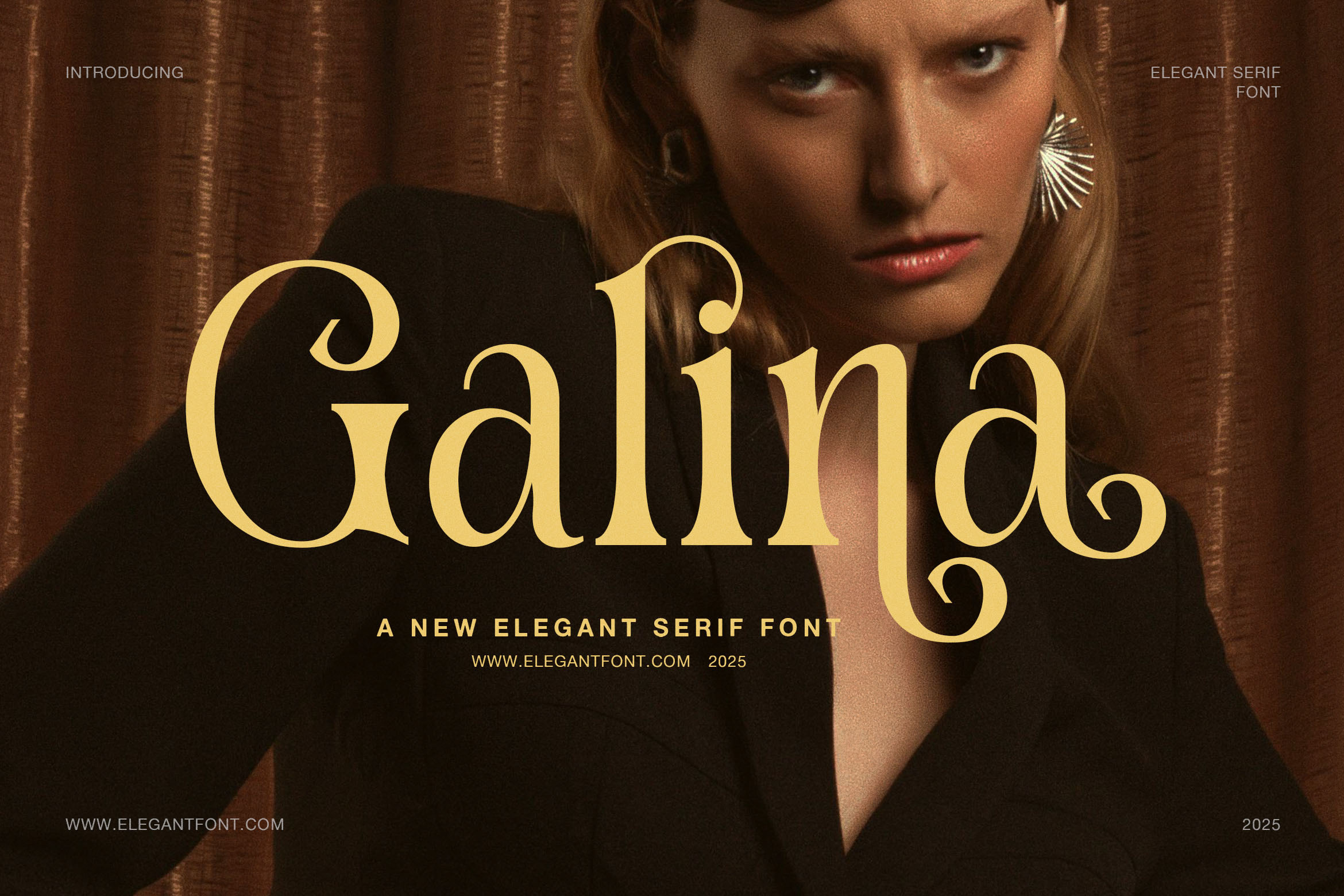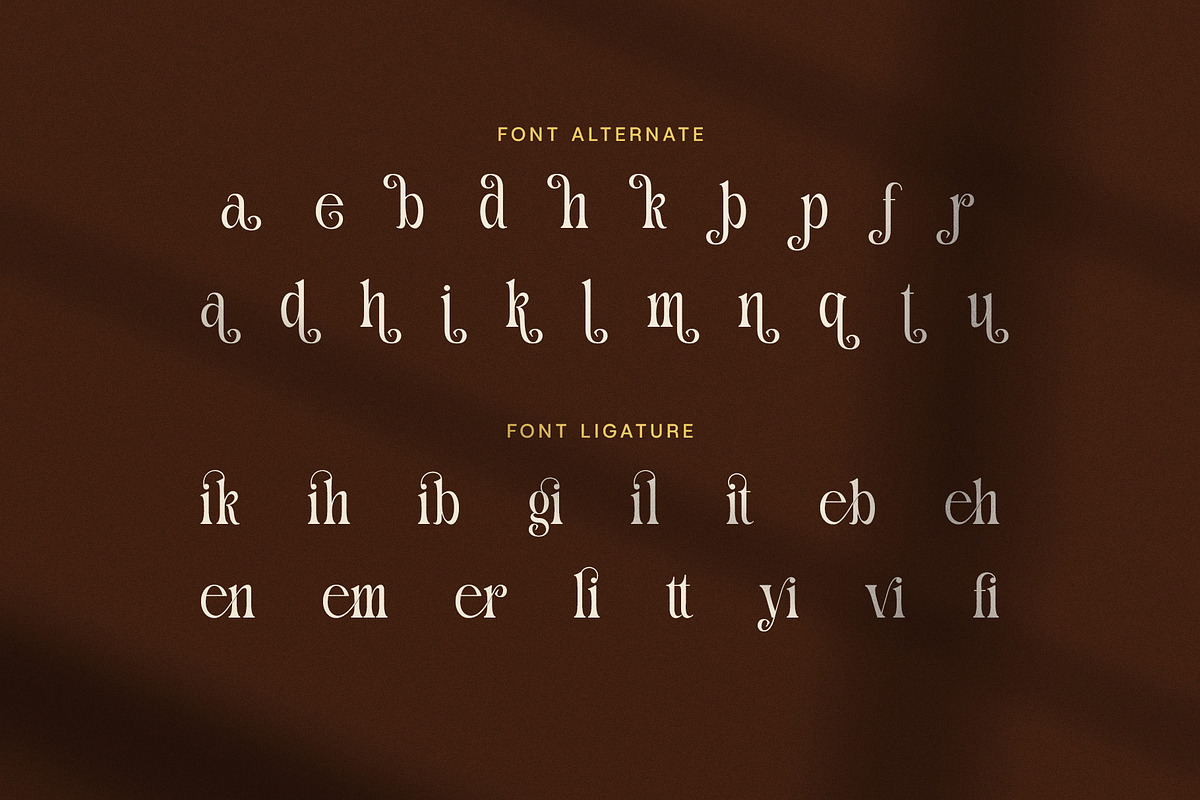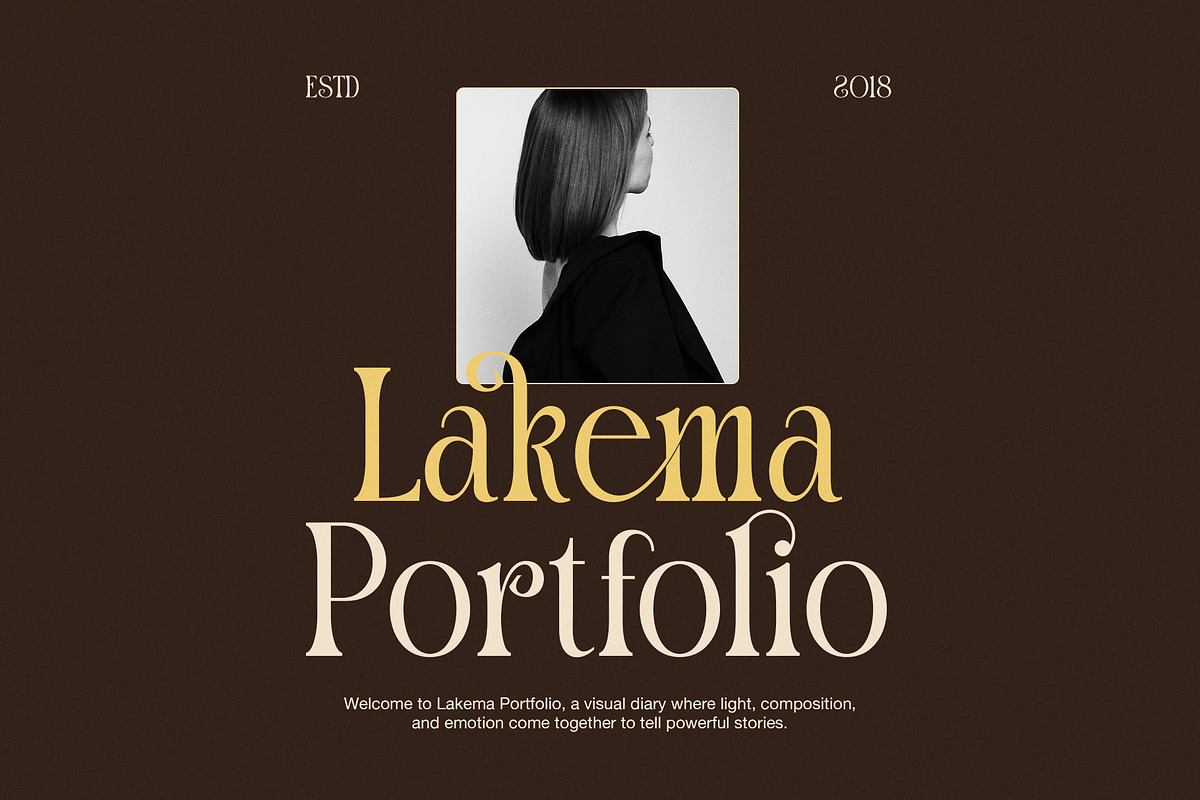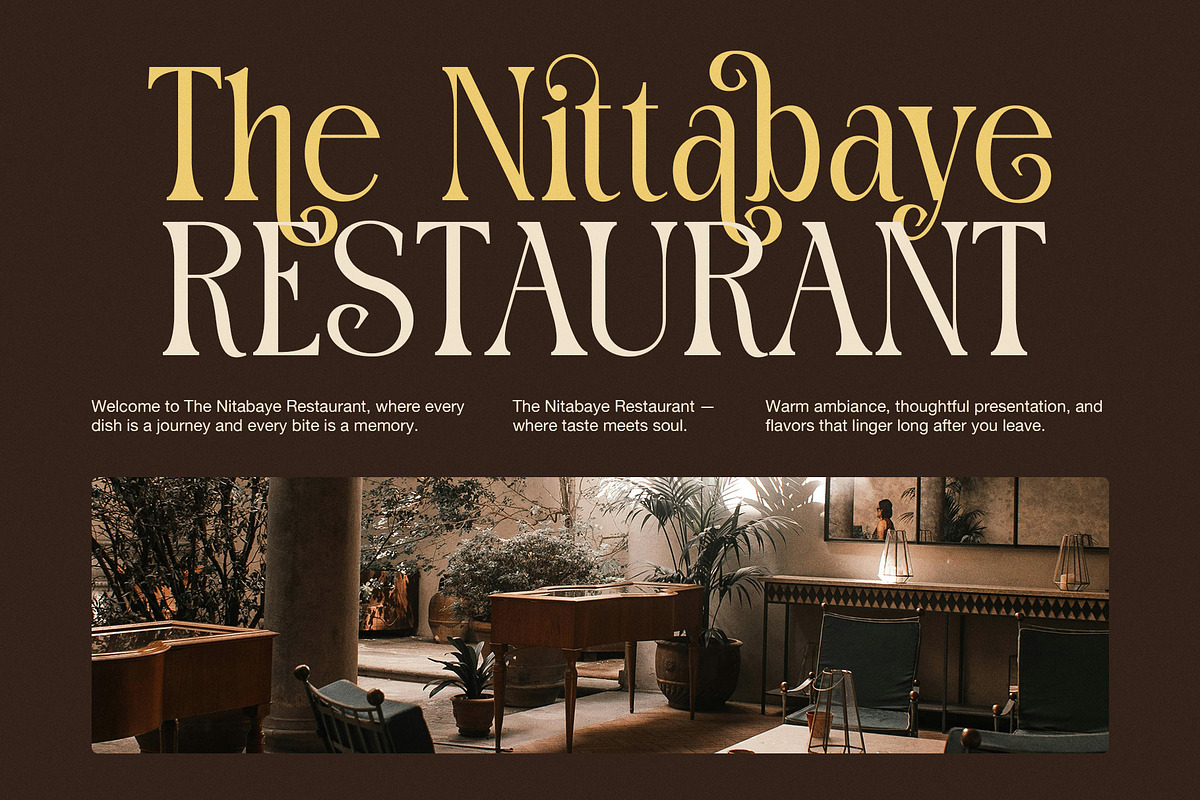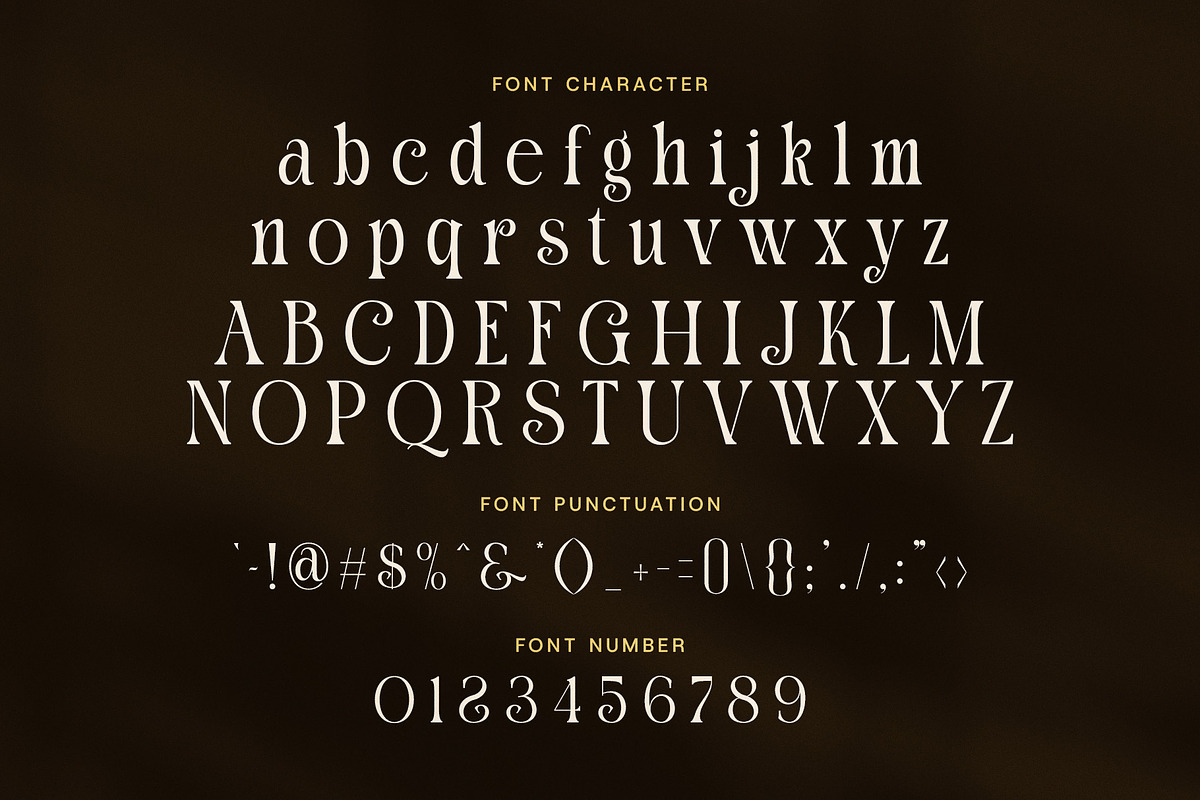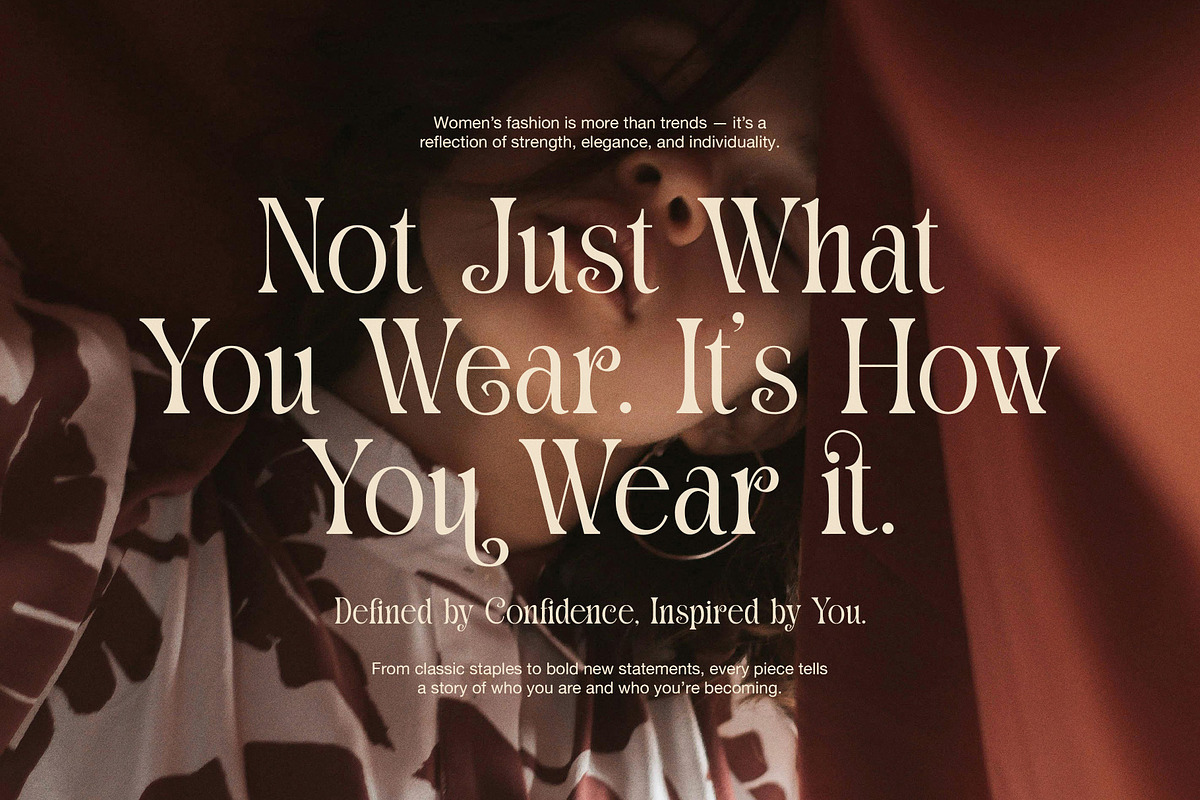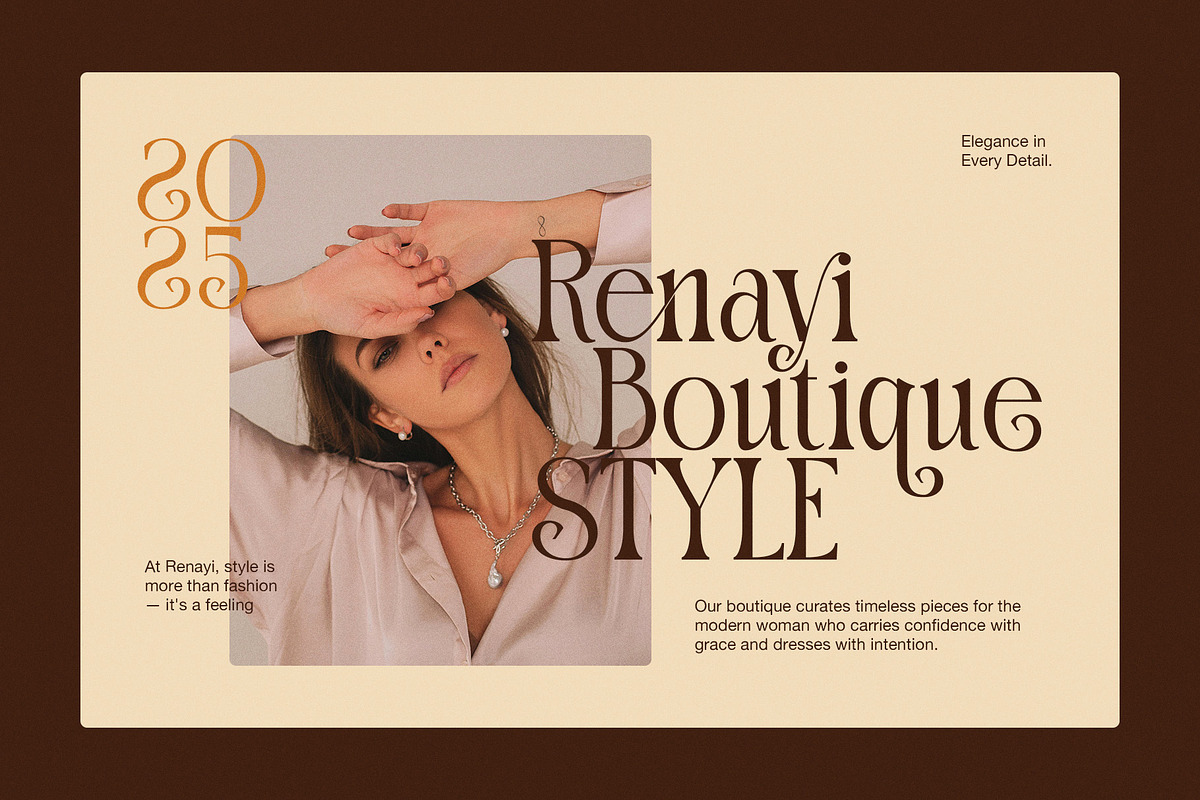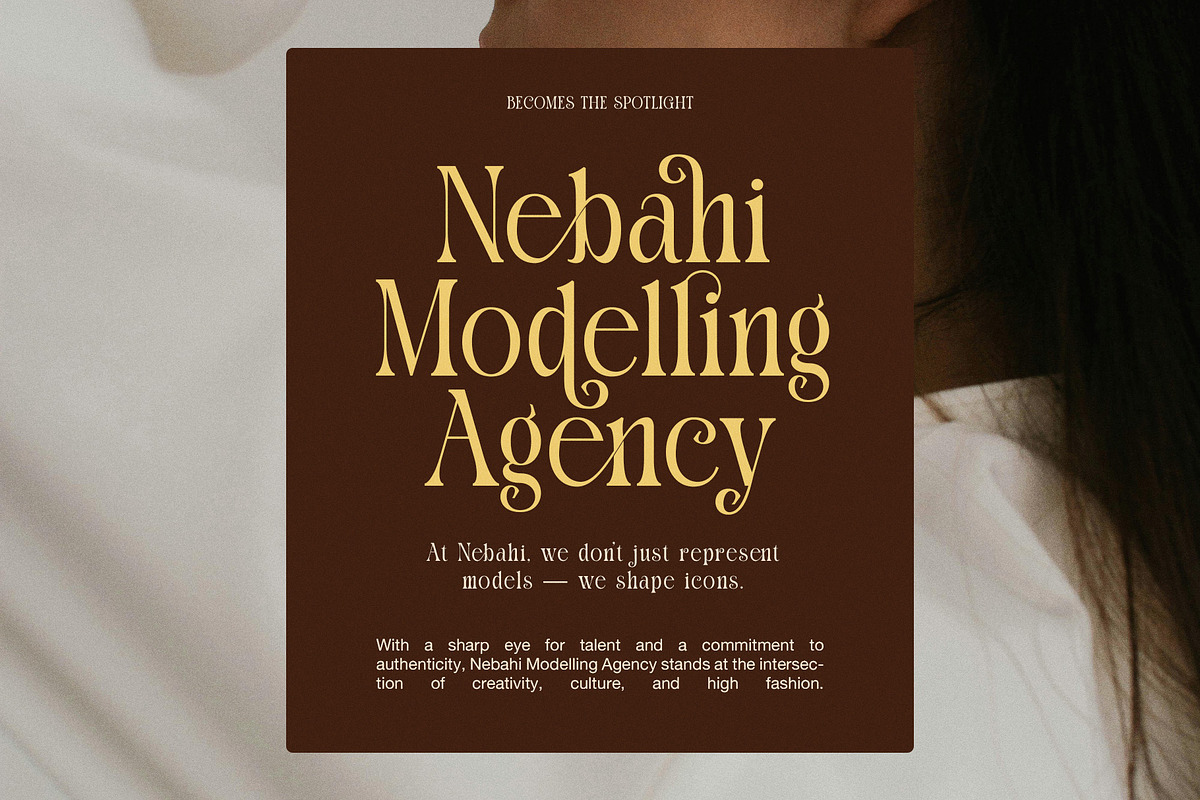
Galina Elegant Serif Font
Elegant Serif Style
Galina Elegant Serif Font is a graceful display serif made for luxury branding, fashion design, beauty layouts, and stylish logos. It has a refined serif base, soft curves, and decorative details that give each word a polished look. Therefore, Galina is ideal for designs that need charm, class, and strong visual appeal.
Refined Letterform Shape
Galina has tall letters with smooth contrast between thick and thin strokes. The main shapes feel clean and classic, yet the curled terminals add a more artistic touch. In addition, the uppercase letters look bold and confident, while the lowercase letters feel soft, slim, and elegant.
The font also includes beautiful alternates and ligatures. These features help designers create unique wordmarks without extra effort. For example, the curled ending on letters such as a, g, y, and t makes a logo feel more custom. Meanwhile, the clean serif structure keeps the font easy to read in large display text.
Best Uses for Galina
Galina works well for many high-end design projects. It is especially useful for:
Fashion logos
Beauty branding
Modeling agency layouts
Boutique identity design
Restaurant branding
Editorial headlines
Luxury packaging
Wedding invitations
Portfolio titles
Perfect for Luxury Branding
Galina is a strong choice for brands that want a stylish and premium mood. For instance, it can make a fashion collection look bold and modern. It can also give a boutique logo a soft, graceful, and refined feel. Moreover, it works beautifully with warm brown colors, gold accents, portrait photos, cream backgrounds, and elegant lifestyle images.
Because the font includes alternates and ligatures, it gives designers more freedom. As a result, you can build logos, headlines, and brand marks that feel personal and professional. Galina also pairs well with simple sans serif fonts, which helps create a clean and modern layout.
Why Choose Galina
Choose Galina when you need an elegant serif font with beauty, balance, and a creative edge. It offers stylish alternates, smooth curves, graceful ligatures, and strong display power. In addition, its luxury look makes it perfect for brands that want to feel memorable, refined, and timeless.